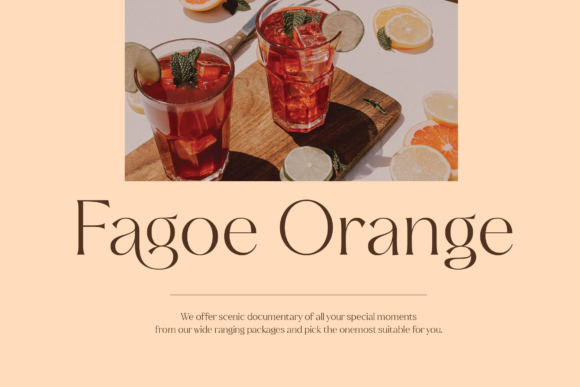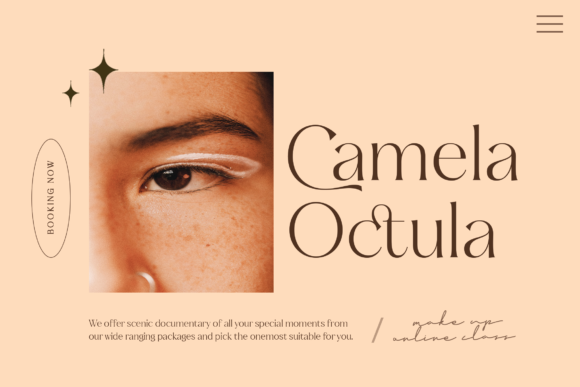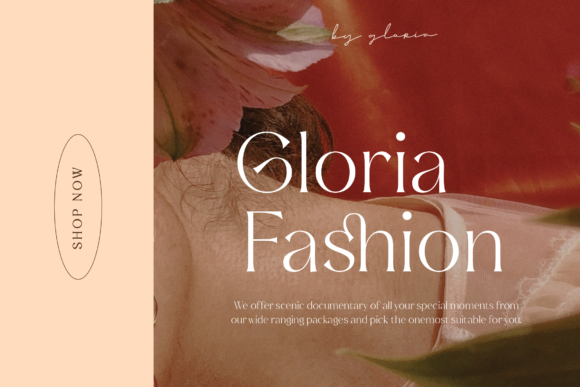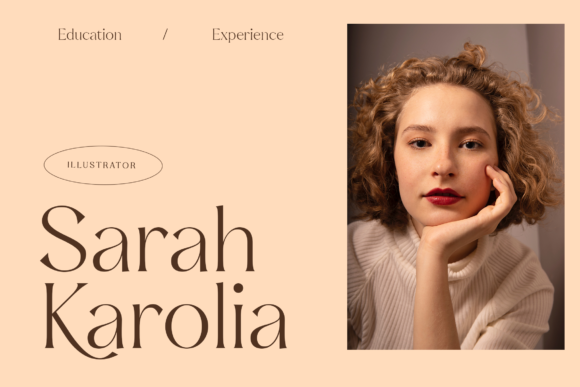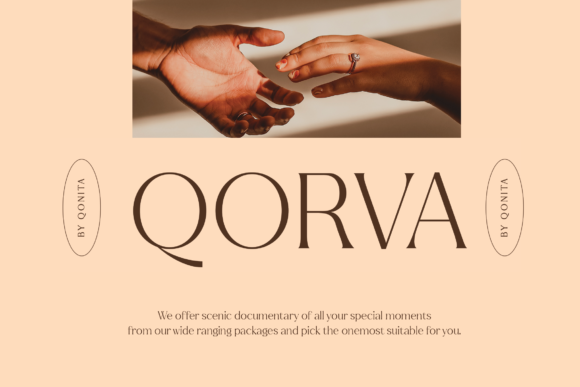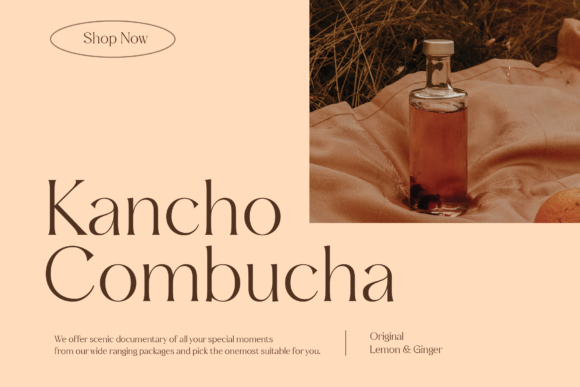
The Moment of Inspiration
As a designer, you know that moment when a project’s vision finally clicks, and the right typography is the key to unlocking its full potential. The words flow, the layout comes together, and the design starts to breathe life. But what happens when that perfect font eludes you? Enter the Calming Font, a beautifully crafted serif typeface designed to soothe and elevate your creative endeavors.
With its elegant lines and subtle nuances, the Calming Font is perfect for luxury logos, classy editorial designs, and high-end branding projects. Its versatility and range of alternates and ligatures make it an invaluable asset for designers seeking to create unique and captivating typographic designs.
Calming Font Key Features
- Font Family: Calming Font comes in a unique, handcrafted font family with 6 styles, including Regular, Italic, Bold, Bold Italic, Outline, and Fill.
- Font Size: The font is designed to be versatile, with a range of font sizes suitable for body text, headings, and titles. Recommended font sizes range from 10pt to 24pt.
- Resolution: Calming Font is optimized for high-resolution displays, with a minimum recommended resolution of 96 DPI (dots per inch) and a maximum recommended resolution of 300 DPI.
- Unique Characteristics: The font features a unique blend of rounded and geometric shapes, creating a calming and soothing effect. It also includes a range of ligatures and swashes to add a touch of elegance.
- Language Support: Calming Font includes support for multiple languages, including English, Spanish, French, German, Italian, and many more. It also includes support for Unicode characters.
Designer Review: Calming Font
As a designer, I’ve had the chance to work with “Calming Font” on a recent project, and I’d like to share my honest review. ✨ One thing that really stands out about this font is its versatility. It’s a great choice for both body text and headings, making it perfect for a wide range of applications.
Another strength of Calming Font is its readability. The letterforms are clean and well-spaced, making it easy to scan and read even at small sizes. ✨ The font also has a nice balance of curves and straight lines, which adds to its visual appeal.
- ⚠️ Limited character set: While Calming Font has a good selection of Latin characters, it’s not as comprehensive as some other fonts. This may be a problem for projects that require support for multiple languages.
- ⚠️ No bold or italic weights: While the font has a nice regular weight, it would be great to see some bold or italic options to add more visual interest.
Overall, I’d say Calming Font is a solid choice for designers who want a clean, readable font that works well for a variety of applications. While it has some limitations, it’s a great option for projects that don’t require extensive character sets or bold/italic weights.
Calming Font: A Practical Application Guide
For a more calming effect, use the font in combination with soothing colors and gentle graphics.
Use the Calming Font to create a calming atmosphere in your design by combining it with gentle textures and subtle color schemes.
Use the Calming Font to create a calming and professional atmosphere in your presentation or document.
Tips for Getting the Most Out of Calming Font
Here are some tips to help you get the most out of Calming Font:
- Use it in combination with soothing colors and gentle graphics.
- Experiment with different font sizes and styles.
- Use it to create a calming atmosphere in your design.
The Calming Font is ideal for use in:
- Meditation and wellness materials.
- Relaxing websites